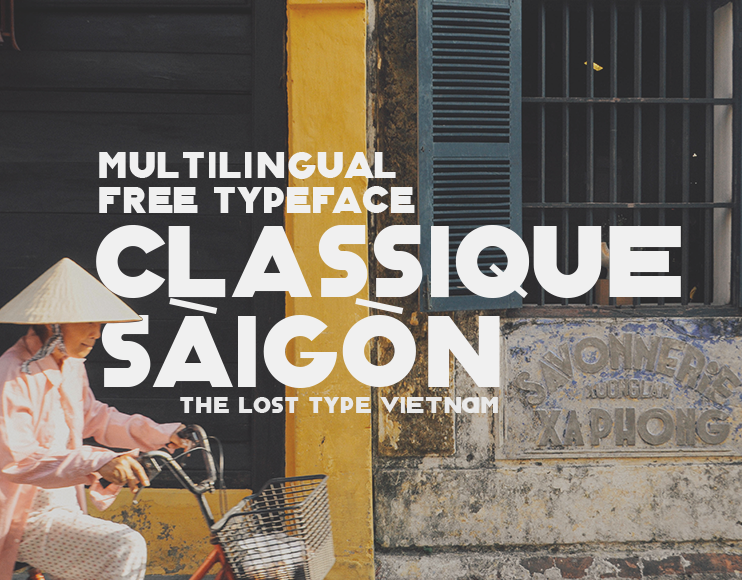
Classique Saigon is a thick, geometry-affected multilingual display sans serif typeface inspired by retro handdrawn style but it also contains uniquely aesthetic modern design . After all previous fonts like Atlantico, Arcadia or Luciana which only support Illustrator with Ai format, Classique Saigon now is upgraded with a free-for-personal downloadable installable TTF font file. You guys can download it below after pressing Like (which is free, too).